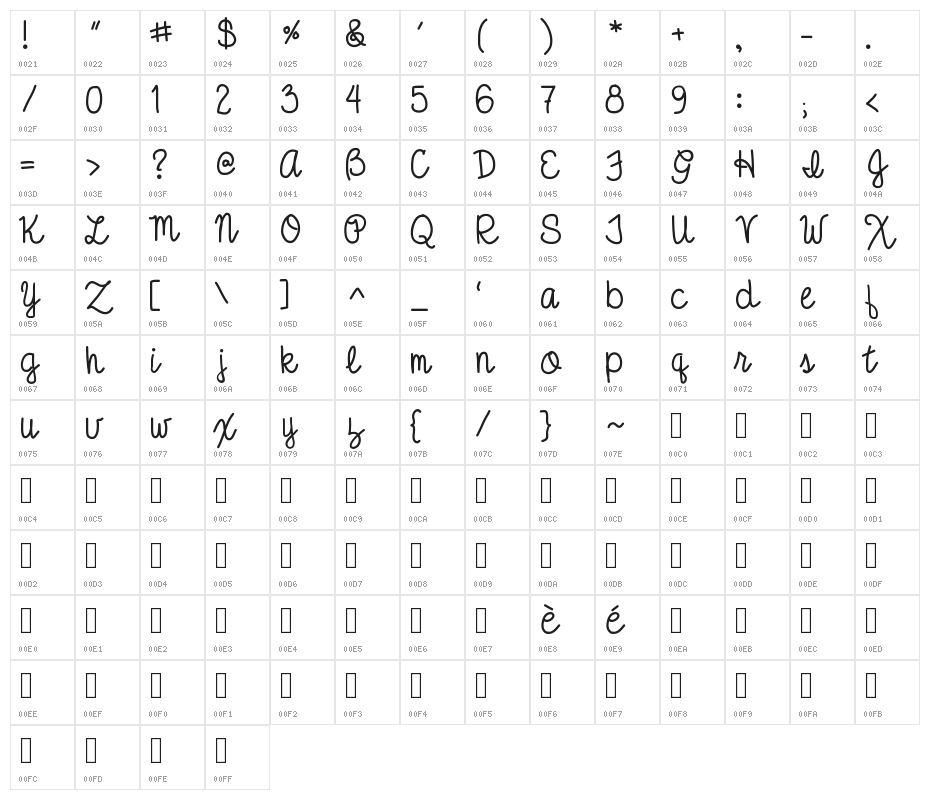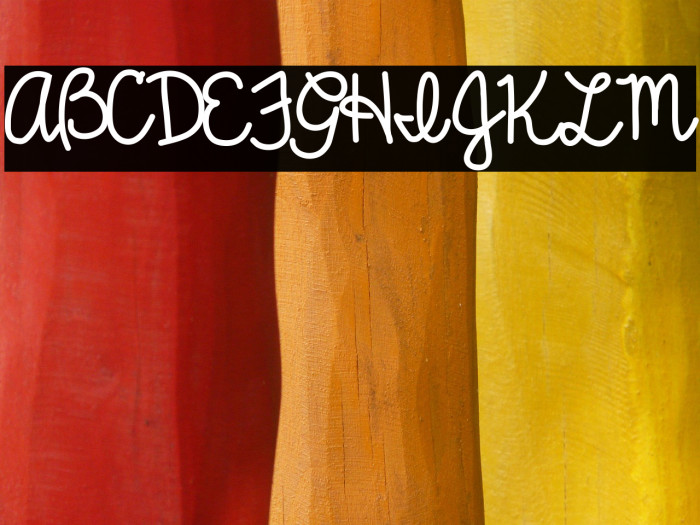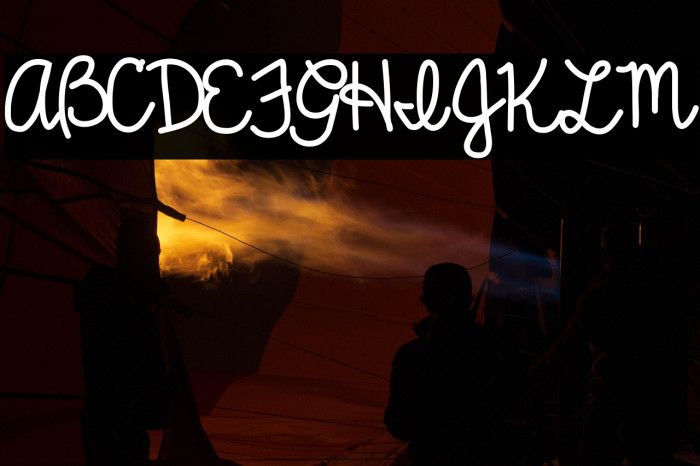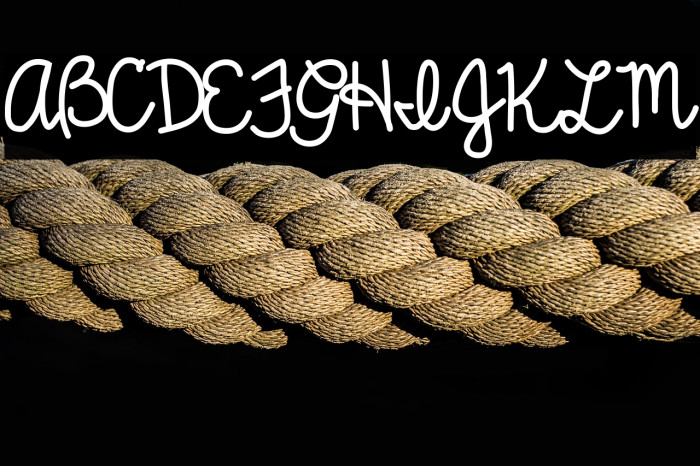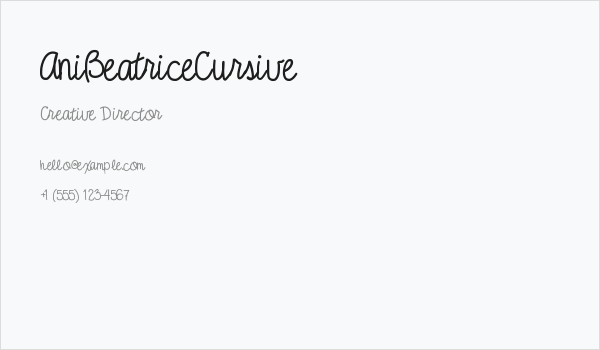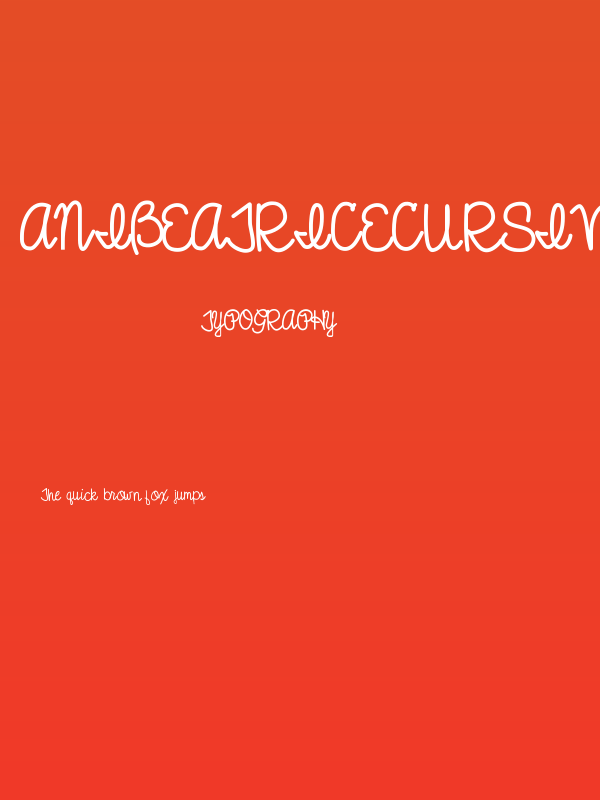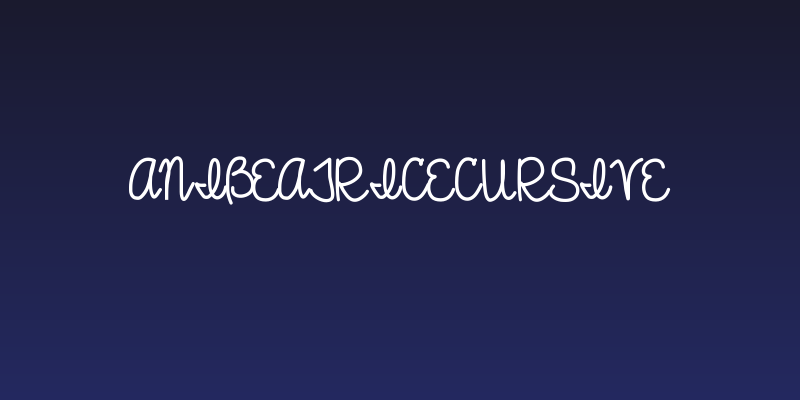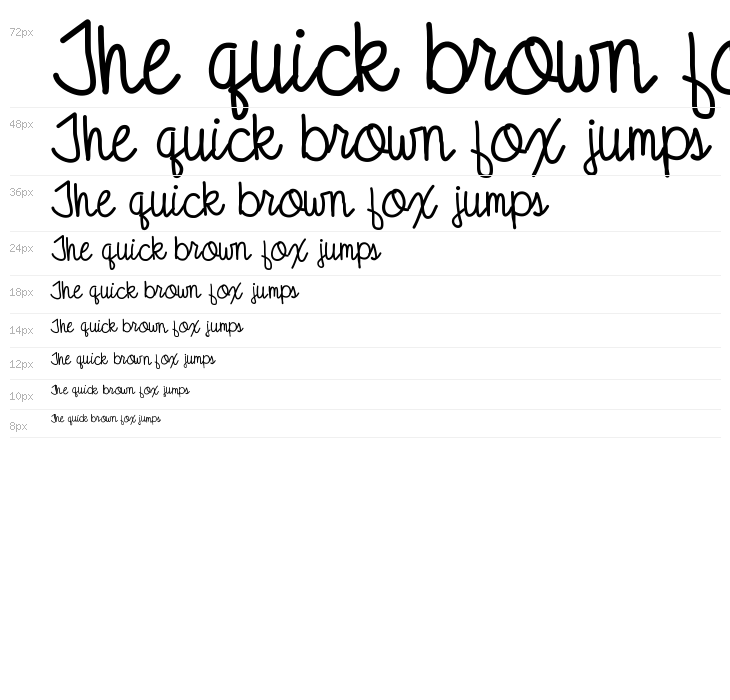
AniBeatriceCursive Font
AniBeatriceCursive Description
This font features a playful and flowing cursive style, characterized by its smooth, continuous strokes that mimic natural handwriting. The uppercase letters are bold and rounded, with a consistent looped design that adds a whimsical touch. Lowercase letters maintain a similar fluidity, with some characters extending slightly below the baseline, enhancing the handwritten feel. The numerals are clear and legible, maintaining the same rounded and connected style. Special characters are creatively integrated, maintaining the overall aesthetic of the font. This font exudes a friendly and approachable vibe, making it ideal for projects that require a personal touch.
| Proposed Projects | Ideal for greeting cards, invitations, personal branding, and creative projects that require a personal touch. |